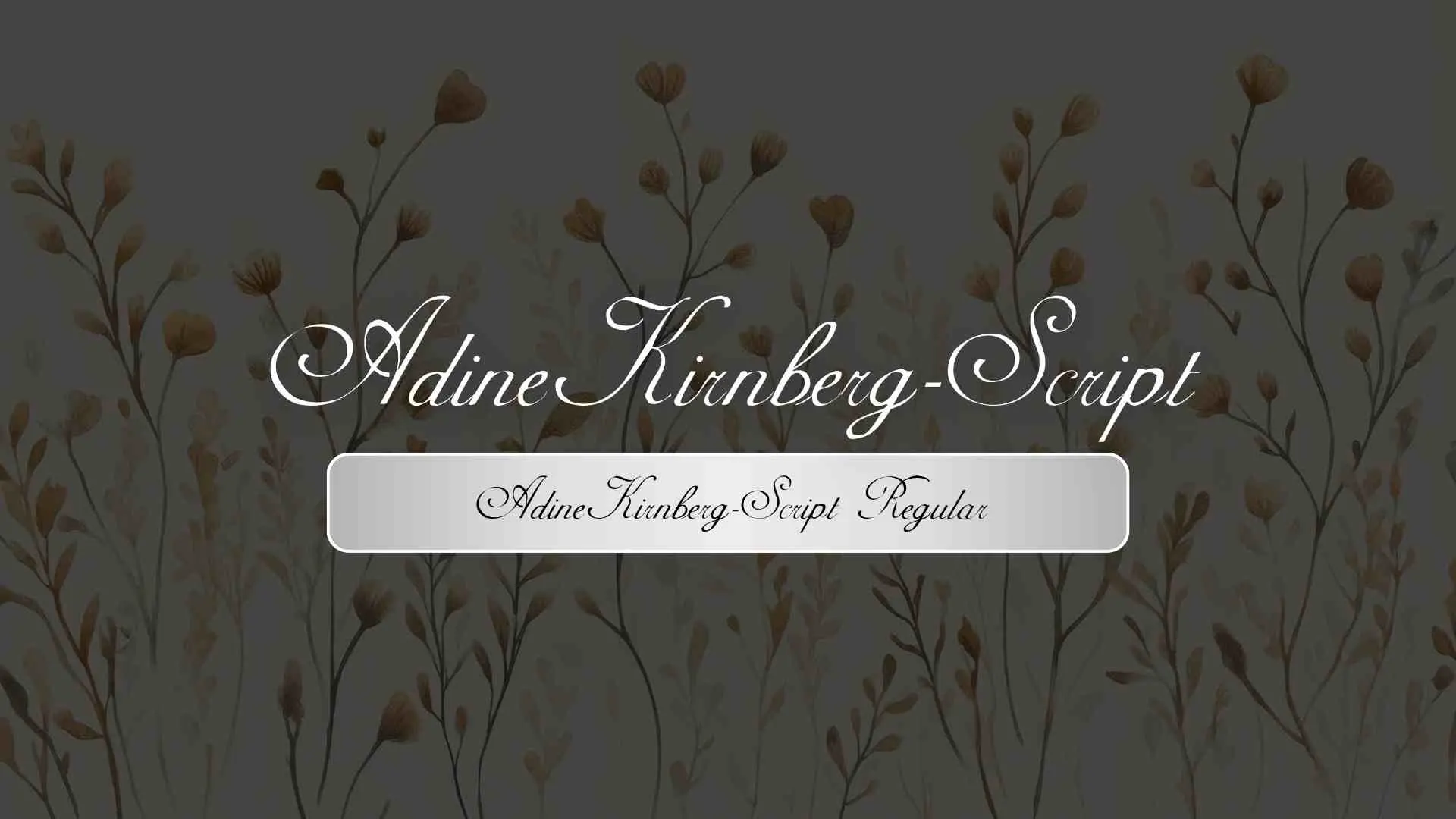
The font AdineKirnberg-Script Regular, designed by David Rakowski, falls under the Script category & AdineKirnberg-Script font family. Its smooth, flowing letterforms make it a versatile choice for projects that require both elegance and readability. AdineKirnberg-Script is particularly well-suited for Invitations and announcements, Personal projects, Branding for luxury or artisanal products and Headlines and decorative text. With its balance of simplicity and decorative appeal, this font brings a polished touch to both personal and professional designs.